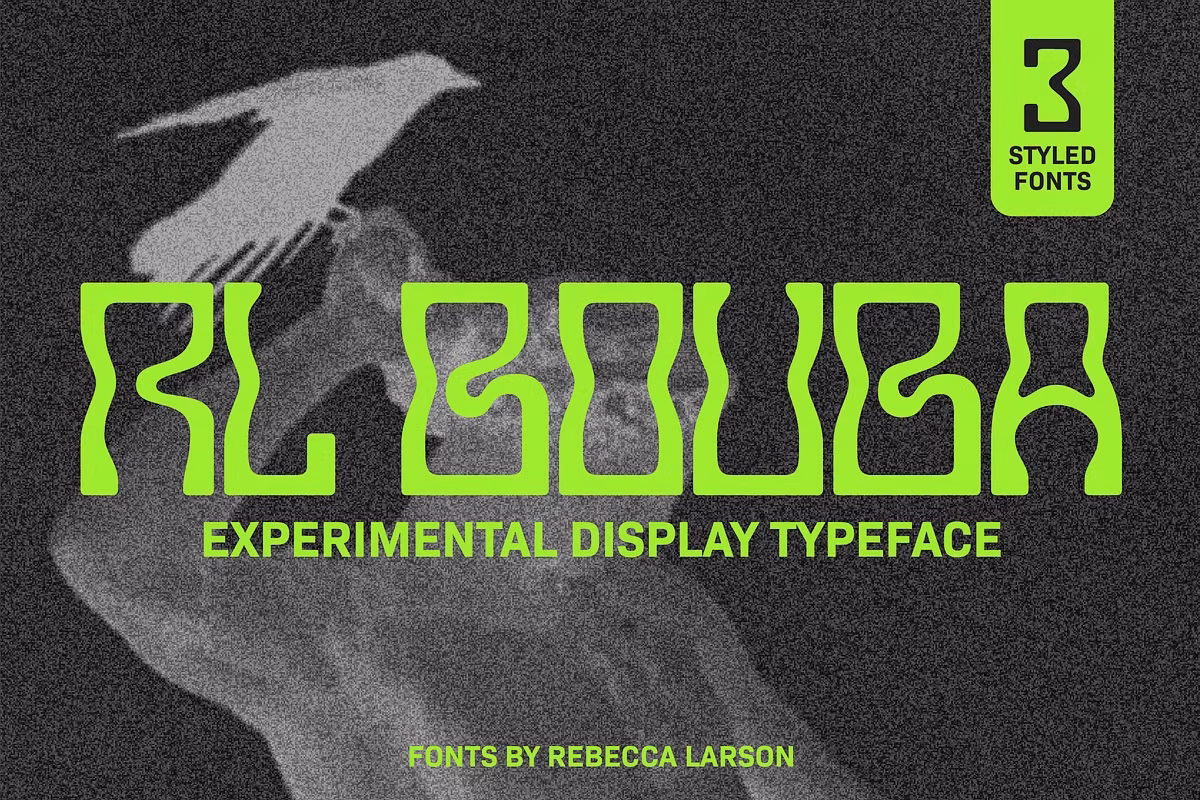
RL Bouba | Display Typeface Free Download is a bold, playful display font designed to make a statement. With its rounded, bubbly letterforms and unique character shapes, RL Bouba is perfect for eye-catching logos, headlines, posters, social media graphics, and branding for creative or youth-focused projects.
Its friendly and energetic style gives a fun, contemporary vibe to your designs, making it ideal for projects that need a touch of charm and personality. Whether you're crafting a modern brand identity or a vibrant promotional piece, RL Bouba will add a memorable touch.